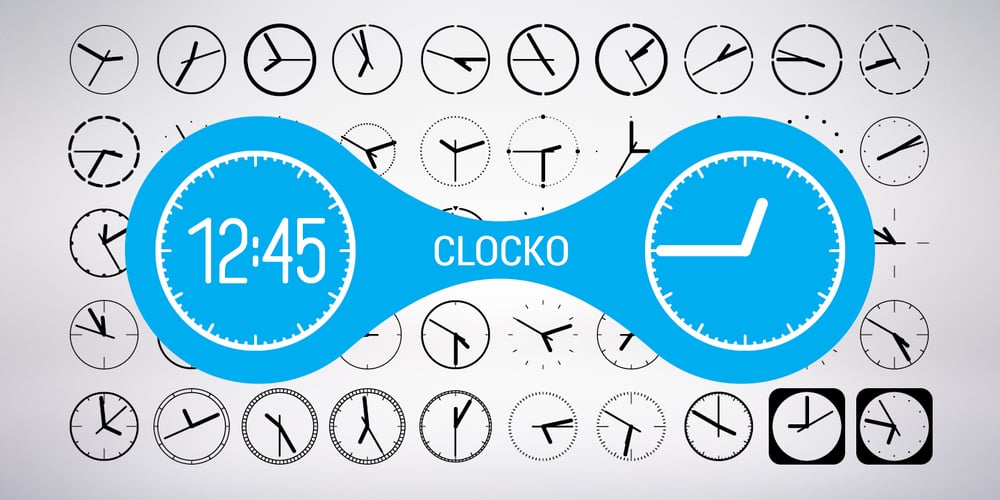
Clocko Font Family was designed by Vaclav Krejci and published by upirTYPO. Clocko contains 1 styles and family package options. Clocko automatically turns the time stamp text into an analog clocks using the OpenType ligatures. Even when the ligatures are turned off, the time is still visible and readable, and it does not change or ruin the layout. Perfect for web usage and even for small sizes. For a crisp look, please use sizes divisible by 30, for example 30pt or 60pt. To make a custom analog clock, type any uppercase or lowercase letter to have a border (see previews for examples), and then type the time in 12 hour or 24 hour format with or without seconds. Use colon, comma, semicolon, hyphen, period or plus as a separator. Few examples: 12:45 9:25:46 10.50 13:30.10 The borders can be mixed together for more interesting look, please see the screenshots above. An additional background shape can be added to the clocks by typing a symbol (! # $ % & ( ) < = > ) as a first character, for example %A12:40:55. Please note that in order to keep the clocks visible, the background shape and the clocks need to have a different colors.